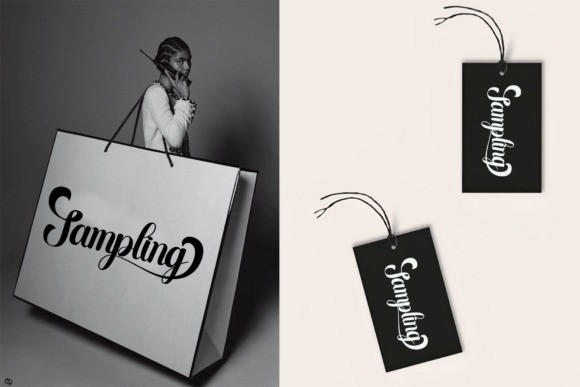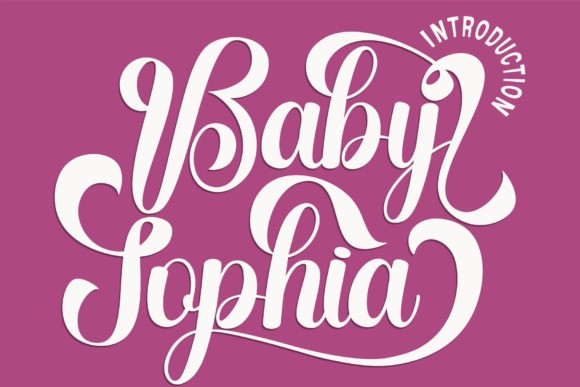
Baby Sophia Font
Baby Sophia Font is a font that exudes softness and elegance. With graceful strokes and a feminine touch, this font will elevate any design project to the highest level, be it branding, titles, wedding designs, invitations, signs, logos, labels, and more!